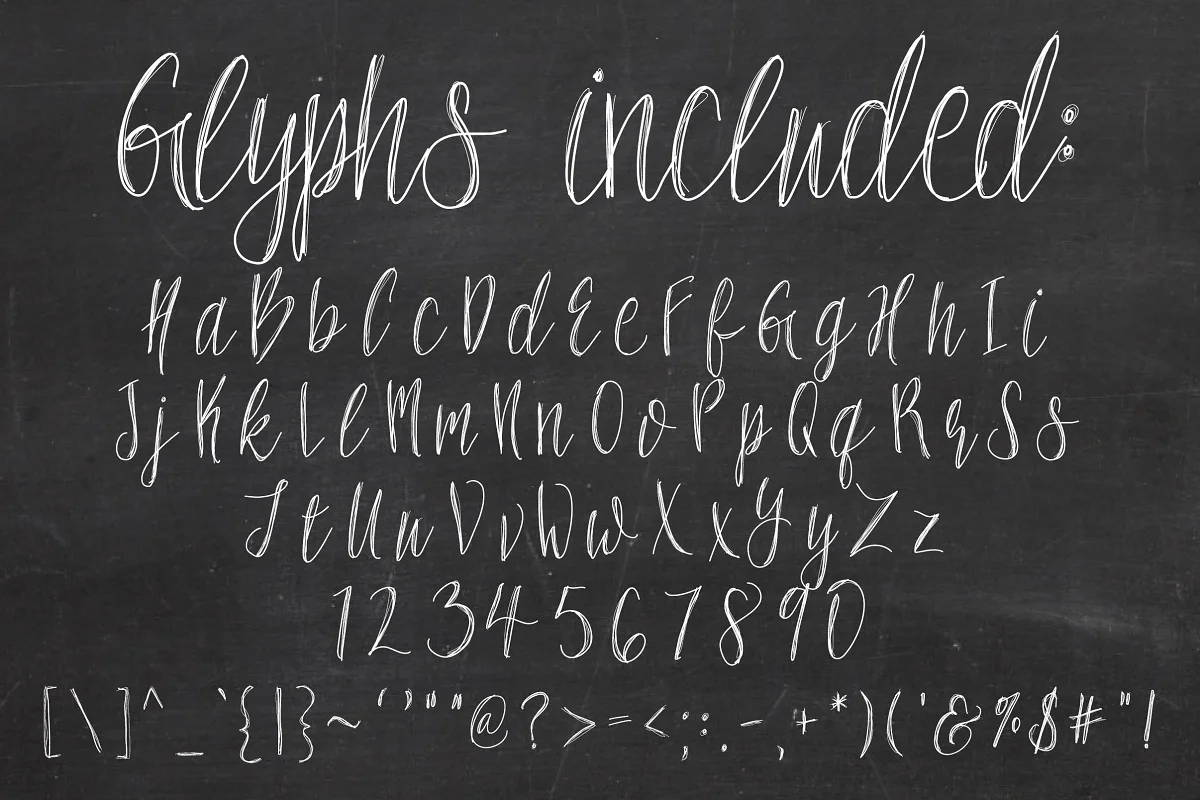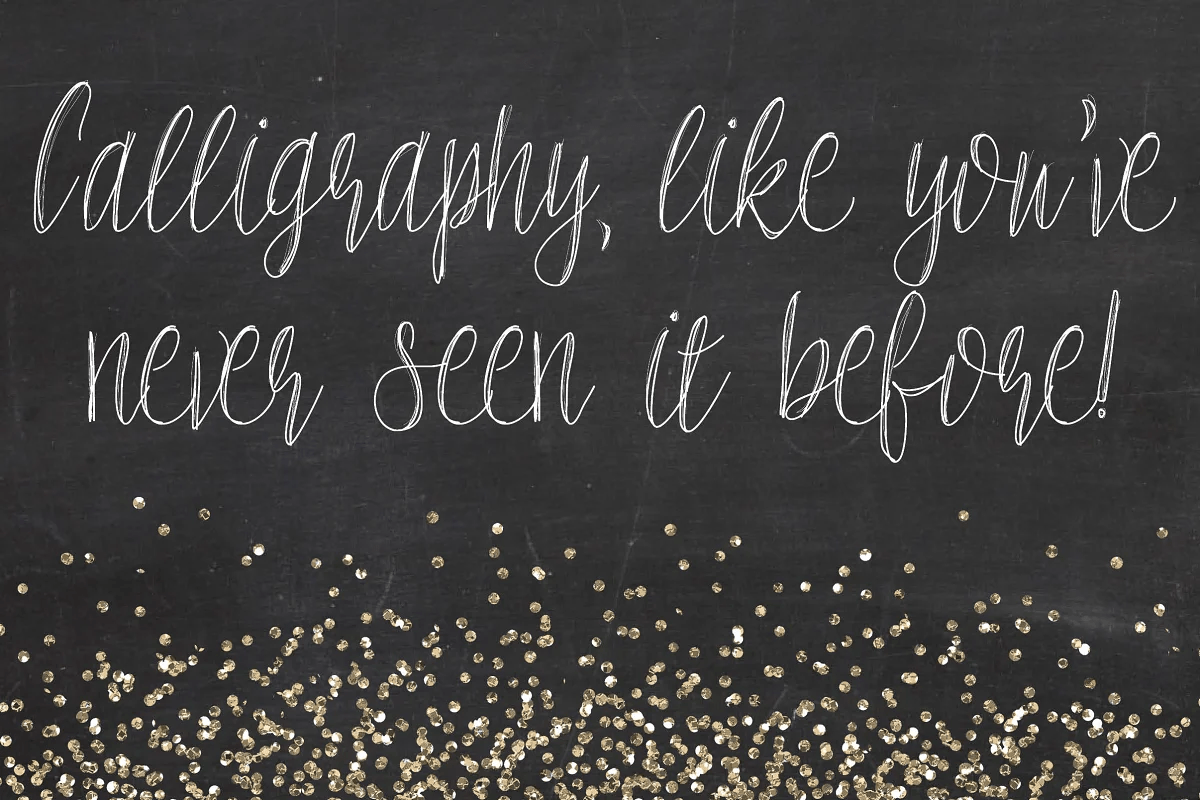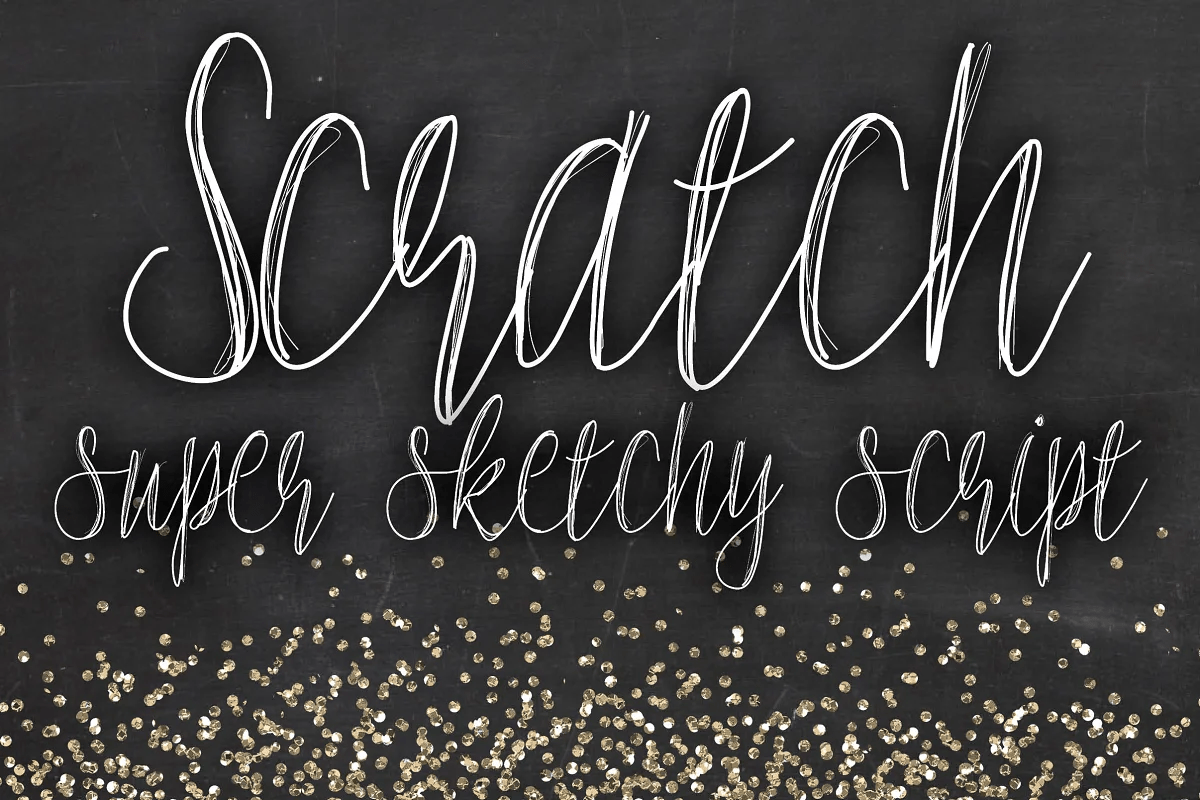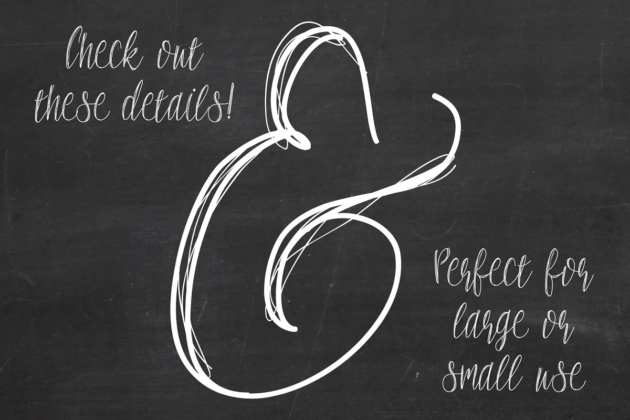
Scratch Super Sketchy Script
About Scratch Super Sketchy Script
A hand-written calligraphy font full of intricate details. At larger sizes, the tiny lines give this font a fun hand-sketched style. And even at the smallest sizes, the font remains readable. Perfect for any project, and especially beautiful on dark backgrounds,…